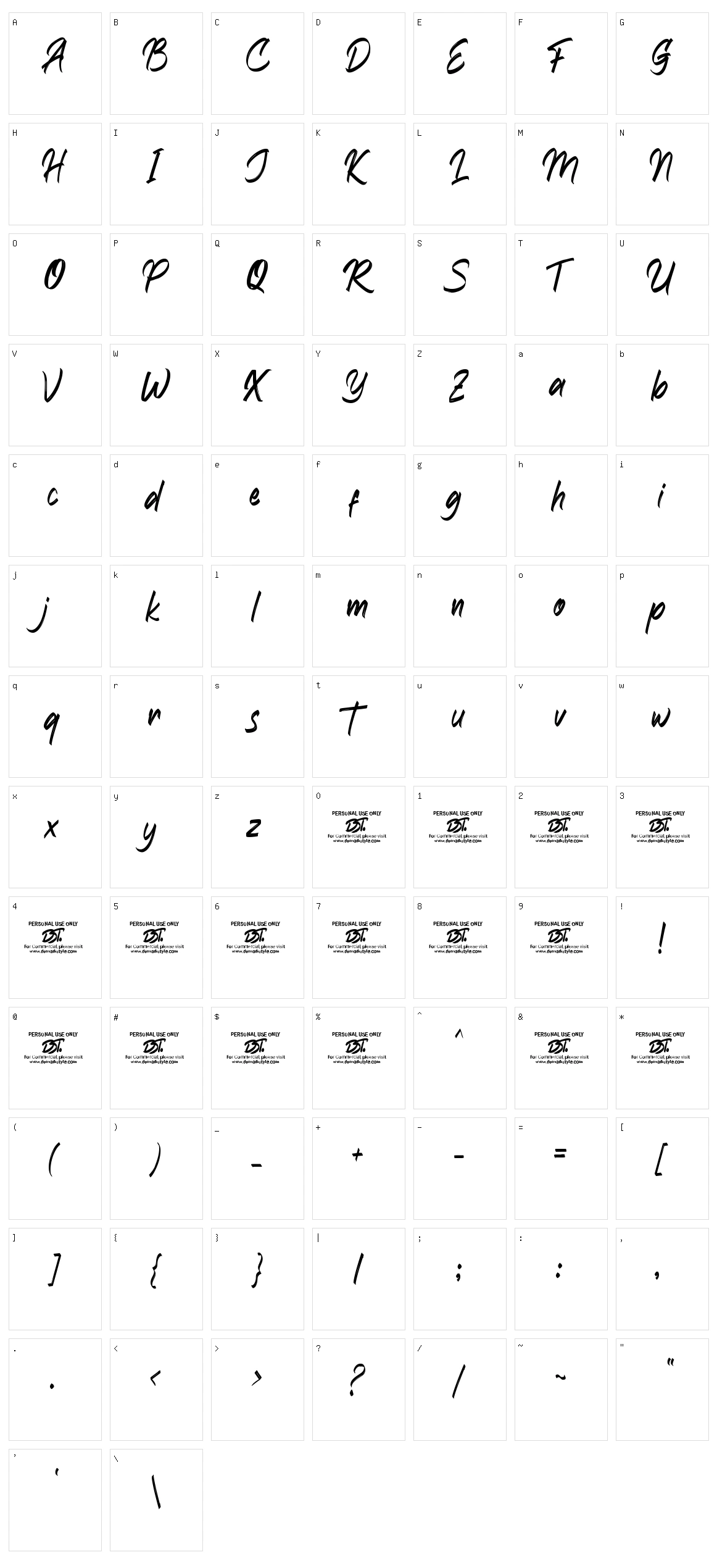
The free font Handtagle is carefully designed by DumadiStyle, showcasing a thoughtful balance of creativity and usability and falls under the Script font style. When you download the ZIP file, it contains only 2578.95 KB of font files, making it lightweight and quick to download. Please review the license details below to understand permitted usage and distribution rights. If license information is not available, we recommend using this font for personal projects only or contacting the author directly for commercial usage permissions.